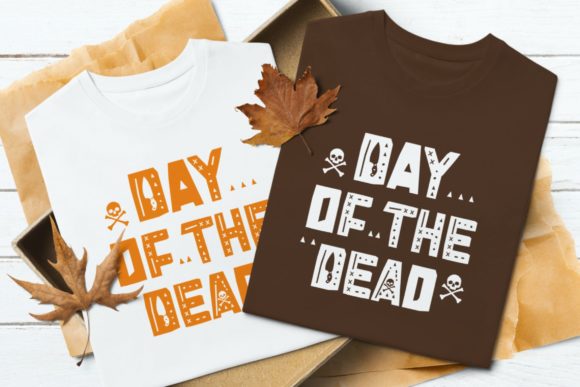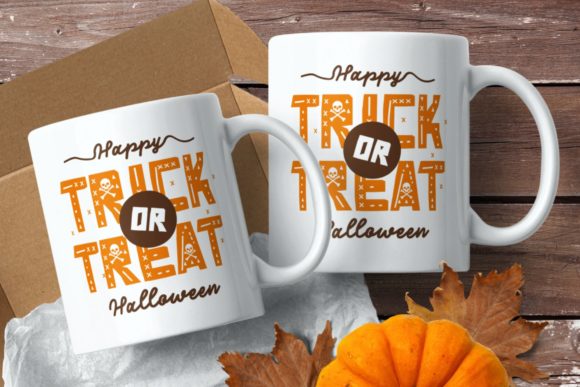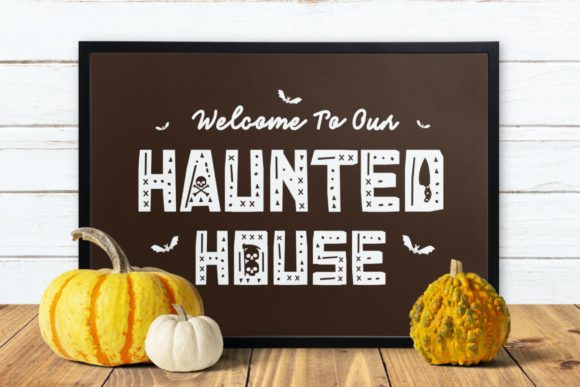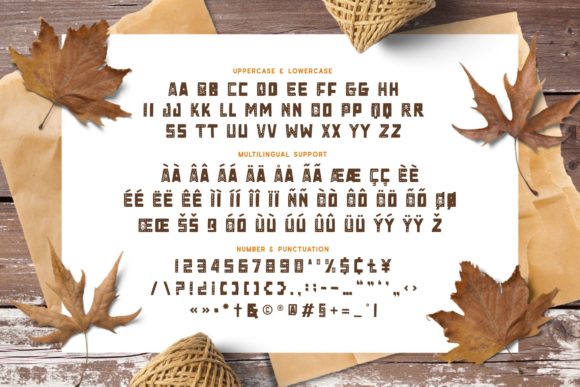
Introduction to Holydie Font
Holydie is a cool and uniquely display font.
Whether you use it for cartoon related designs, children games or just any creation that requires a lovely touch, this font will be an amazing choice .